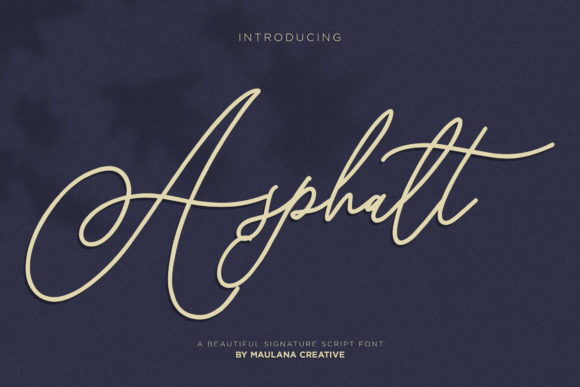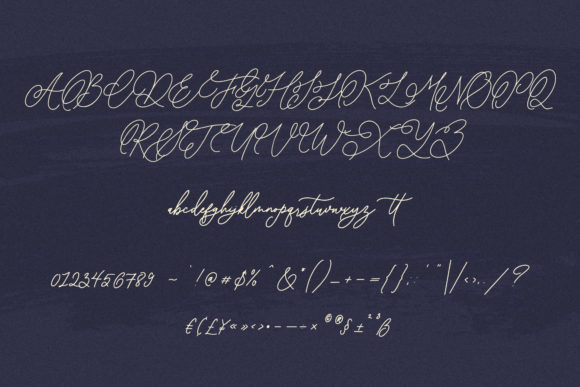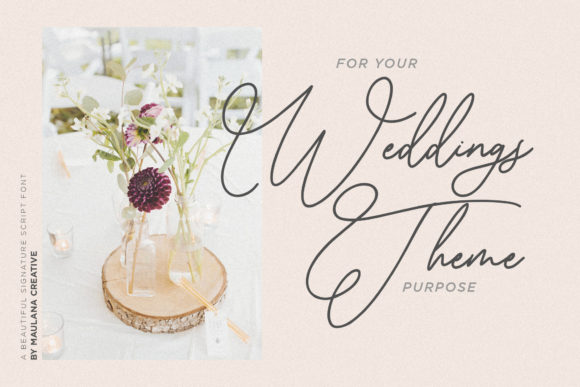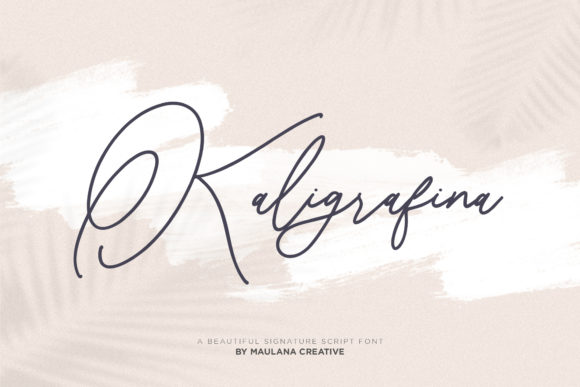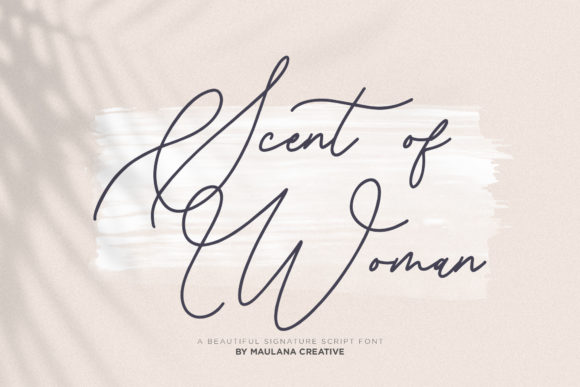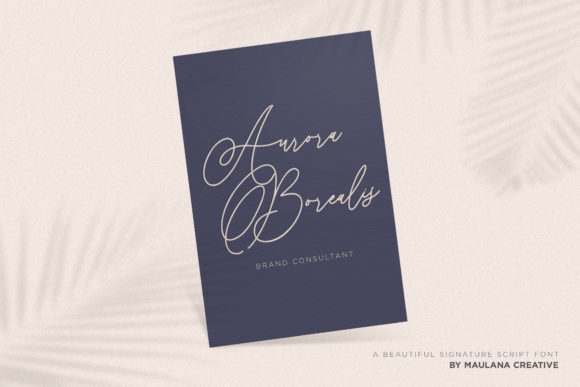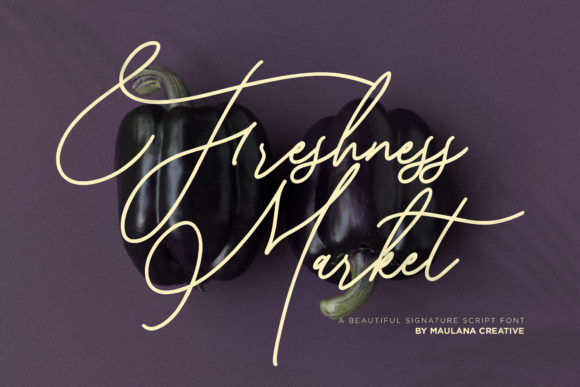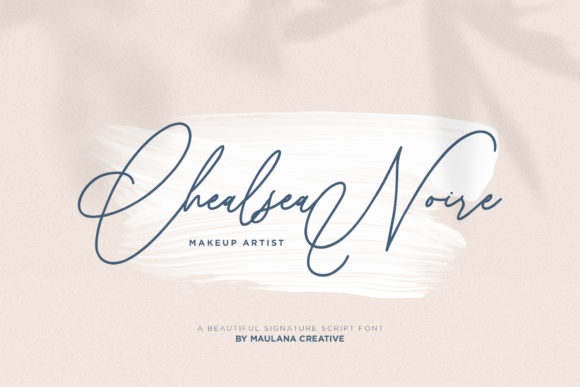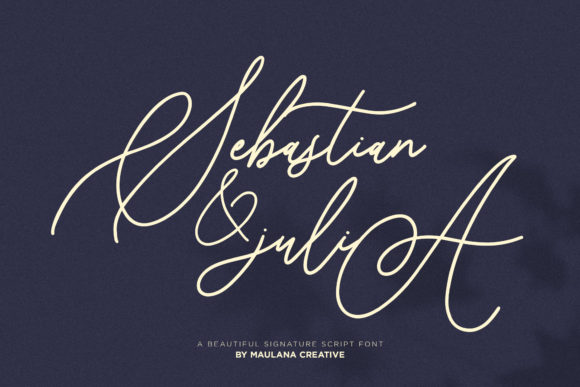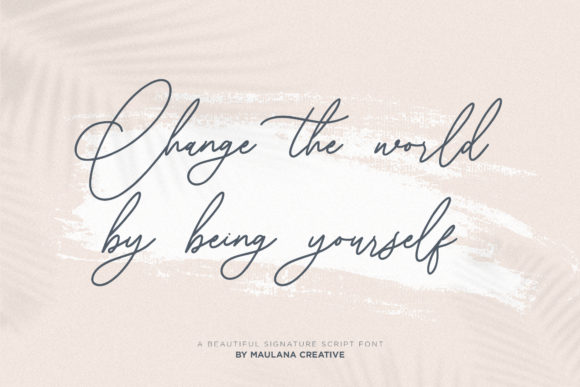
Asphalt Font
Asphalt is a lovely script font that gives your designs an authentic handcrafted feel. It will add a romantic touch to any crafting project!